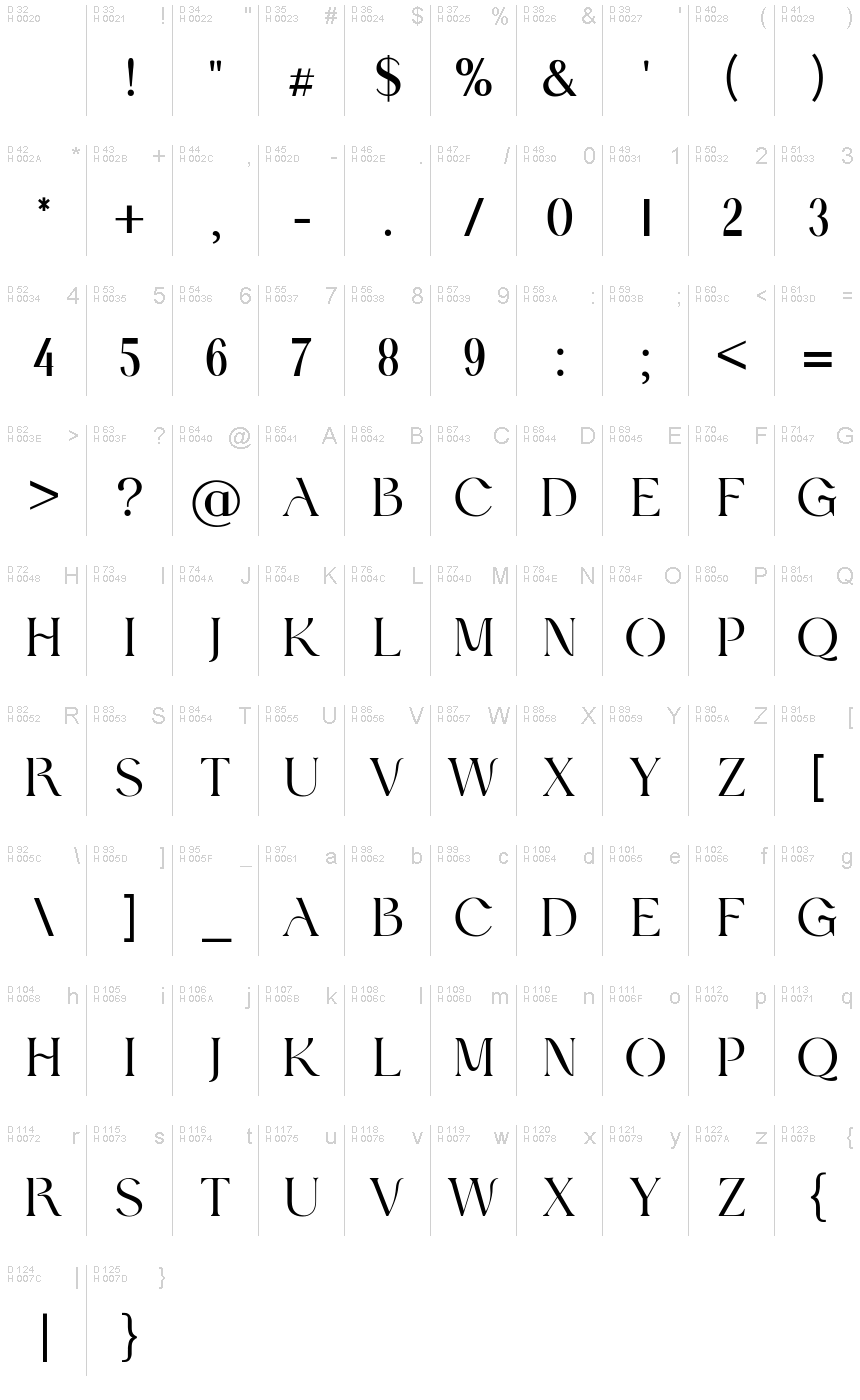
Hydrogenous
Hydrogenous, crafted by UI Creative, is a striking serif font that exudes elegance and sophistication. Its meticulously designed letterforms feature gracefully elongated serifs and a balanced contrast between thick and thin strokes. This refined aesthetic makes Hydrogenous an excellent choice for projects that aim to convey luxury and timelessness.
With its poised yet dynamic presence, Hydrogenous is perfect for high-end branding, editorial design, and upscale packaging. The font's distinctive character ensures it stands out in both digital and print mediums, making it a versatile asset for designers seeking to make a lasting impression.